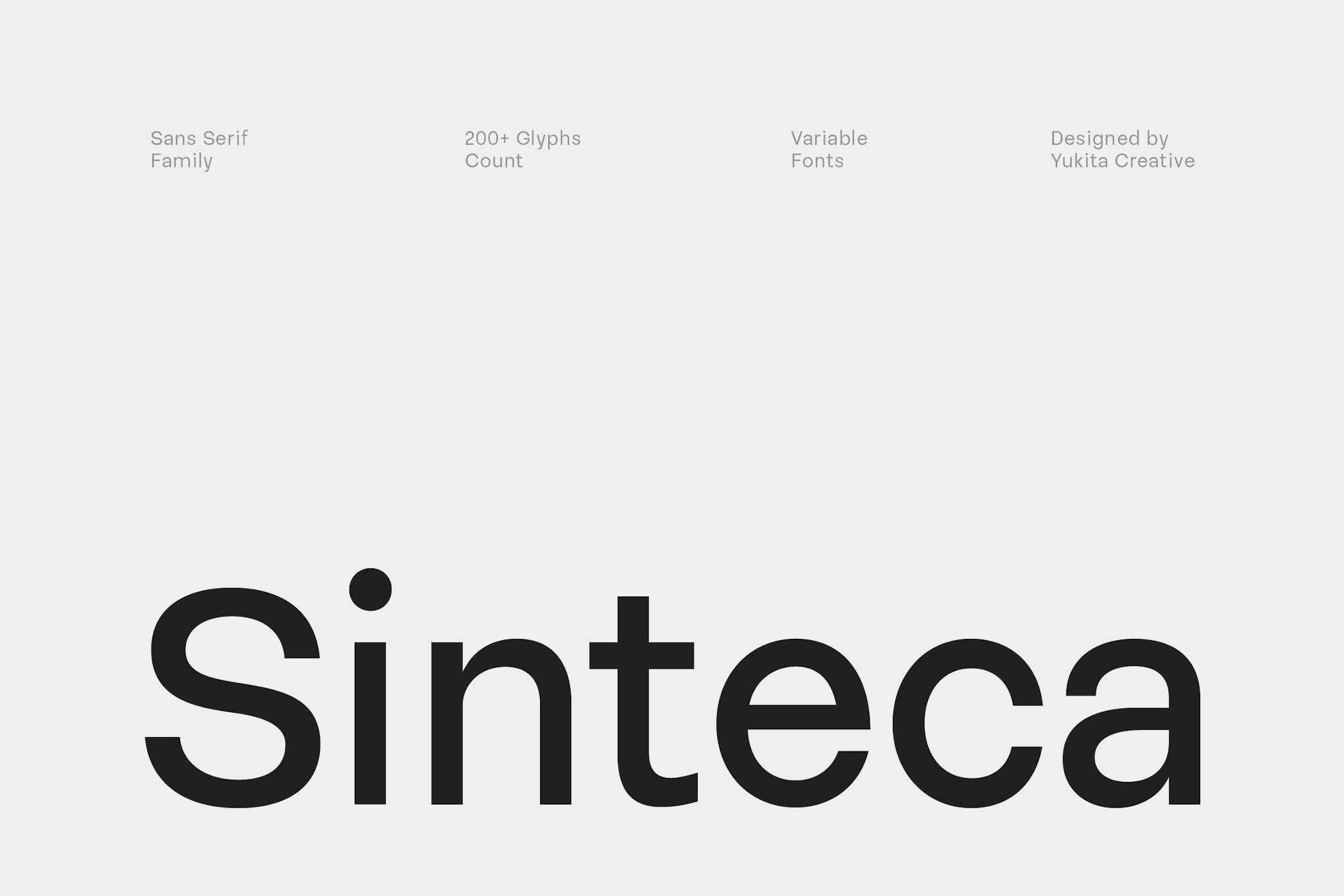
Sinteca Sans Serif Font
Sinteca Sans Serif Font is perfect for modern corporate branding, clean web typography, professional presentations, contemporary logo design, minimalist editorial layouts, digital interface design, tech company communications, sleek advertising campaigns, and sophisticated brand identity systems.
What makes Sinteca Sans Serif Font exciting is its perfect synthesis of contemporary design principles with exceptional functionality that creates typography that feels both current and timeless. This refined typeface features carefully balanced proportions, optimized letter spacing, and subtle personality details that enhance readability while maintaining visual distinction. The font's clean aesthetic and professional demeanor make it ideal for brands that need to communicate innovation, reliability, and modern sophistication through typography that performs flawlessly across all digital and print applications.
Sinteca Sans Serif Font family includes comprehensive weight variations: Thin, ExtraLight, Light, Regular, Medium, SemiBold, Bold, ExtraBold, and Black, each available in both upright and italic styles. This extensive collection provides 18 meticulously crafted fonts that enable designers to create sophisticated typographic hierarchies with precise control over brand expression and communication effectiveness across complex organizational systems.
The Sinteca Sans Serif Font Free Download provides access to professional-grade typography that excels in both corporate and creative environments. This font performs exceptionally well in technology sectors, professional services, financial institutions, and modern brands where clear communication and visual credibility enhance organizational reputation and user experience. The optimized letterforms ensure excellent performance across all screen resolutions and print formats.
Design professionals appreciate Sinteca Sans Serif Font for its versatility and consistent reliability. The font's neutral character and technical precision work beautifully in both detailed text applications and prominent display settings. Its contemporary aesthetic appeals to modern audiences while maintaining the professional qualities needed for long-term brand sustainability and market credibility.
The comprehensive character set includes technical symbols, mathematical operators, and extensive multilingual support that enhances international communication capabilities. Sinteca Sans Serif Font Free Download allows creative teams to thoroughly evaluate the complete font system before making strategic typography investments.
Whether used for established corporate rebranding or emerging technology ventures, Sinteca Sans Serif Font consistently delivers superior typography that communicates professionalism, innovation, and contemporary sophistication that resonates with audiences seeking reliable and forward-thinking organizational partnerships.